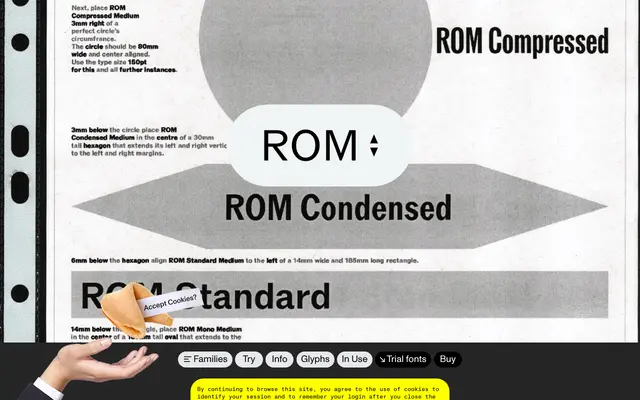
ABC ROM specimen from Dinamo Typefaces
A grotesque-and-gothic fusion across six widths from Compressed to Extended, drawn from 1960s and 1970s conceptual art catalogue typography.
A wide-ranging grotesque by Seb McLauchlan that fuses the rationalised lines of Grotesk styles with the raw details of Gothic ones. ROM takes inspiration from typeface applications in 1960s and 1970s conceptual art catalogues; caps are wide and generous, lowercase narrow and elegant. Six subfamilies flow from Compressed to Extended (plus a Mono cut), each with seven weights and italics, and the O's counter shifts from diamond to rectangle to circle as widths grow. McLauchlan describes drawing it after searching unsuccessfully for a mature, full-weight Franklin Gothic, Bell Gothic or Akzidenz-Grotesk for his own publishing projects.
Dinamo describe ROM as a sturdy, confident fusion of classic Grotesk and Gothic typeface styles, drawing on conceptual art catalogues from the 1960s and 1970s, with wide and generous caps and narrow elegant lowercase. McLauchlan started from a search for a mature typeface in the spirit of Franklin Gothic, Bell Gothic or Akzidenz-Grotesk.